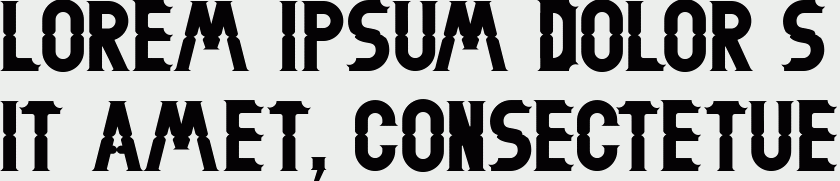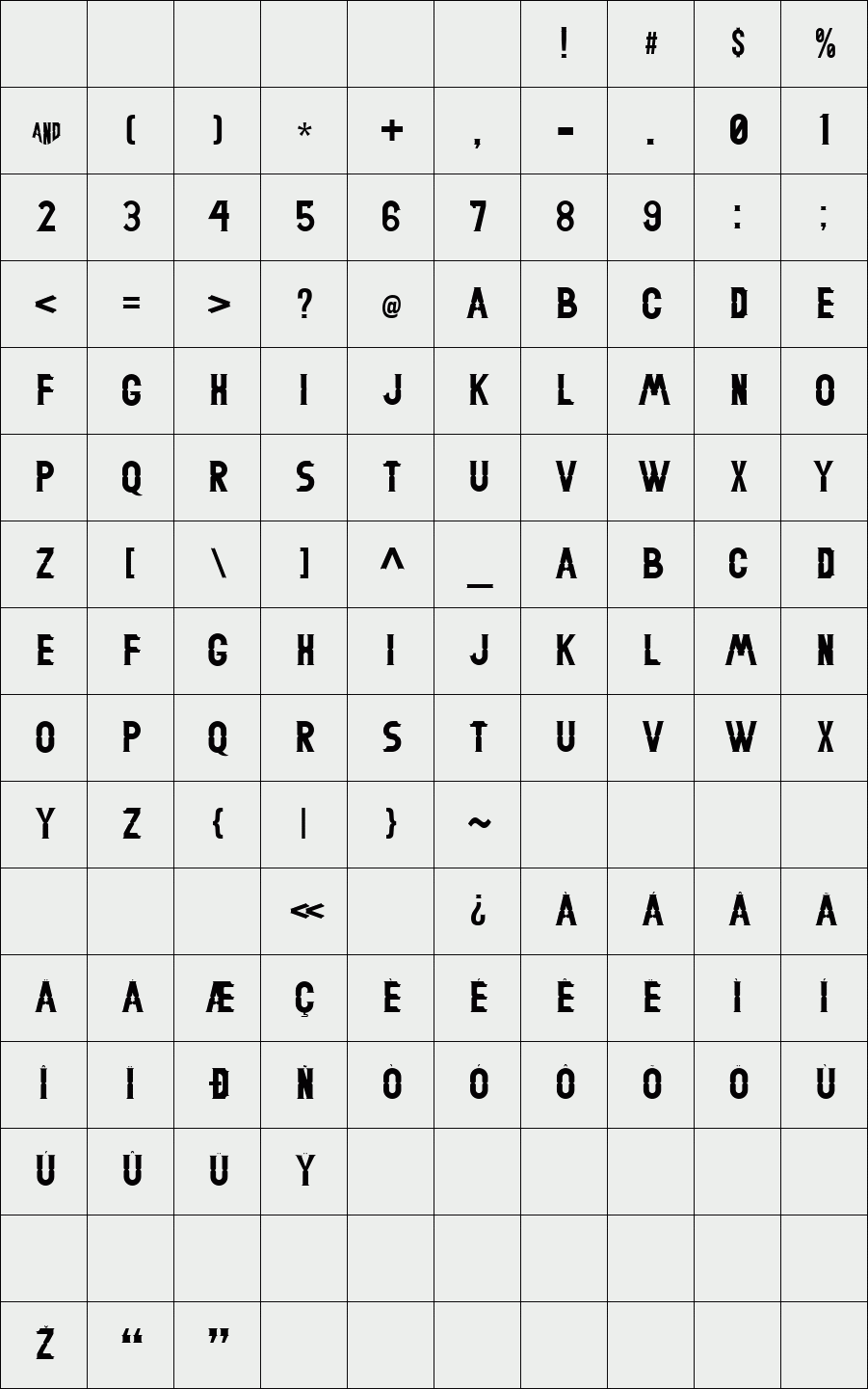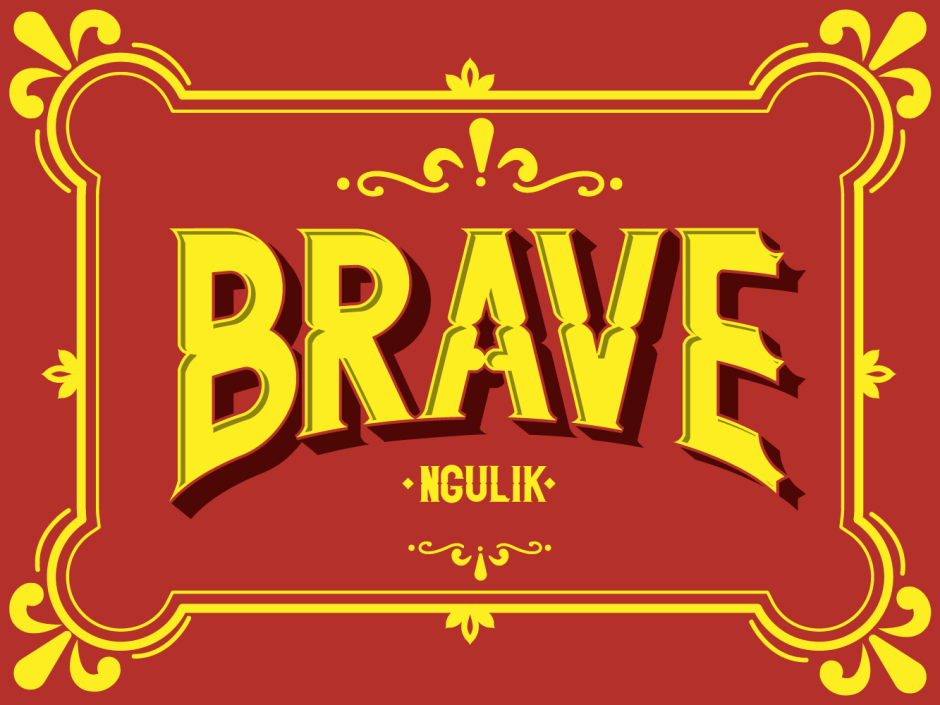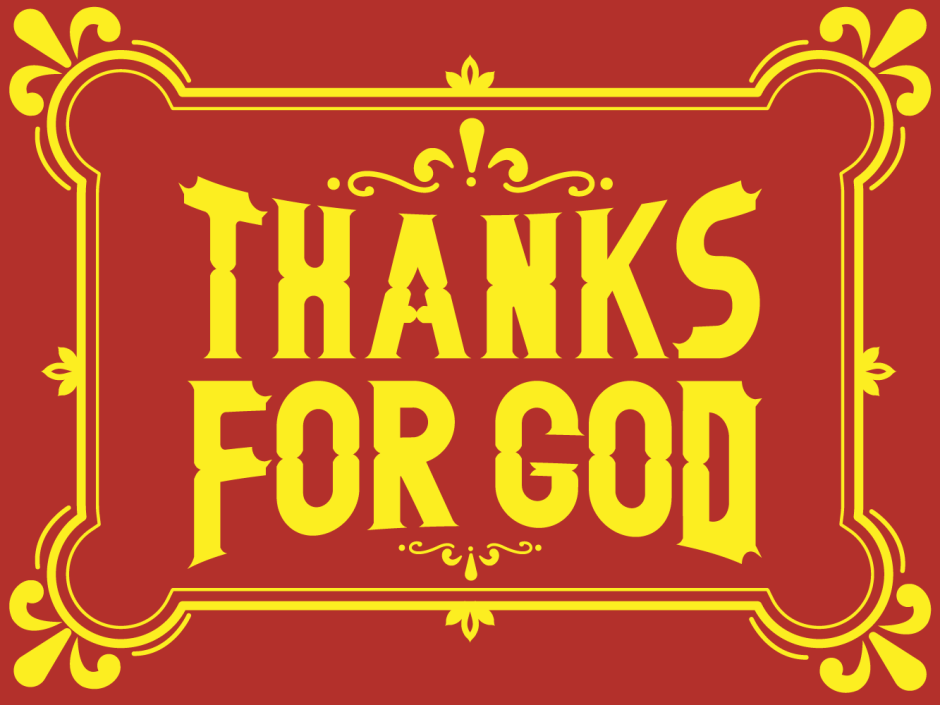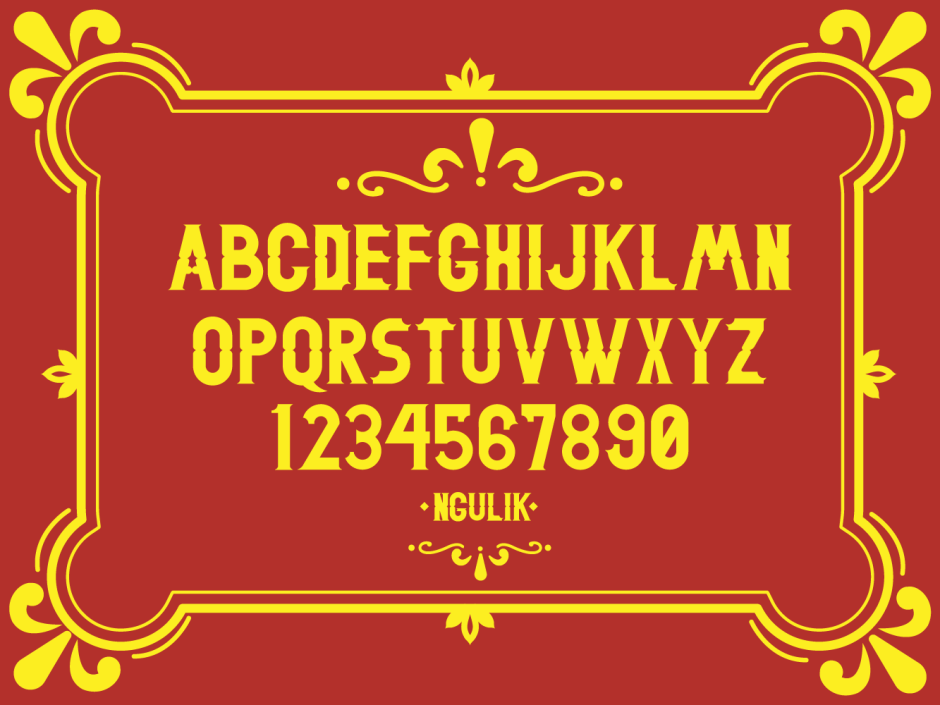
BRAVE
Brave Typeface, an authentic display fonts, especially designed based on victorian styles as we know like engraved curved, and sharp edge. And repackaged with modern styles without leaving the basic patterns.